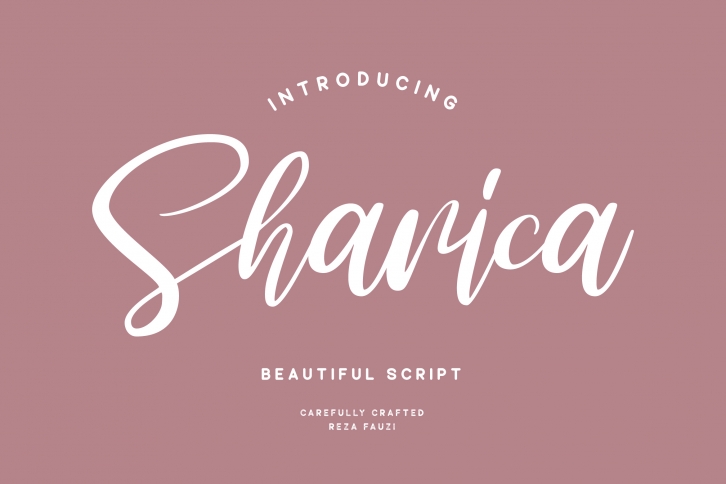
Sharica - Script Font Download
Sharica is a beautiful font that was designed by Grezline Studio. It's a great choice for designers and creatives who need such a font. It was released on July 24, 2019 and the file size is 21.71 MB. Sharica may give a more youthful, expressive and casual look to your project. It is a very beautiful, refined, elegant, and high-quality font.